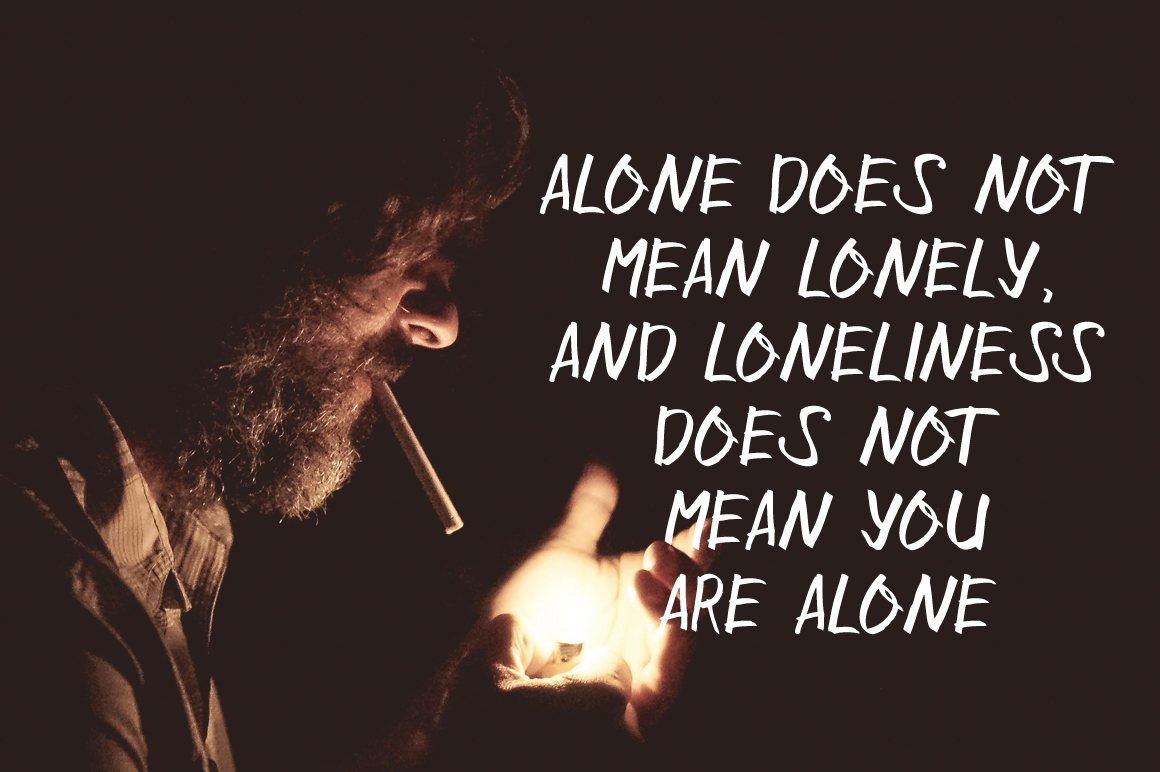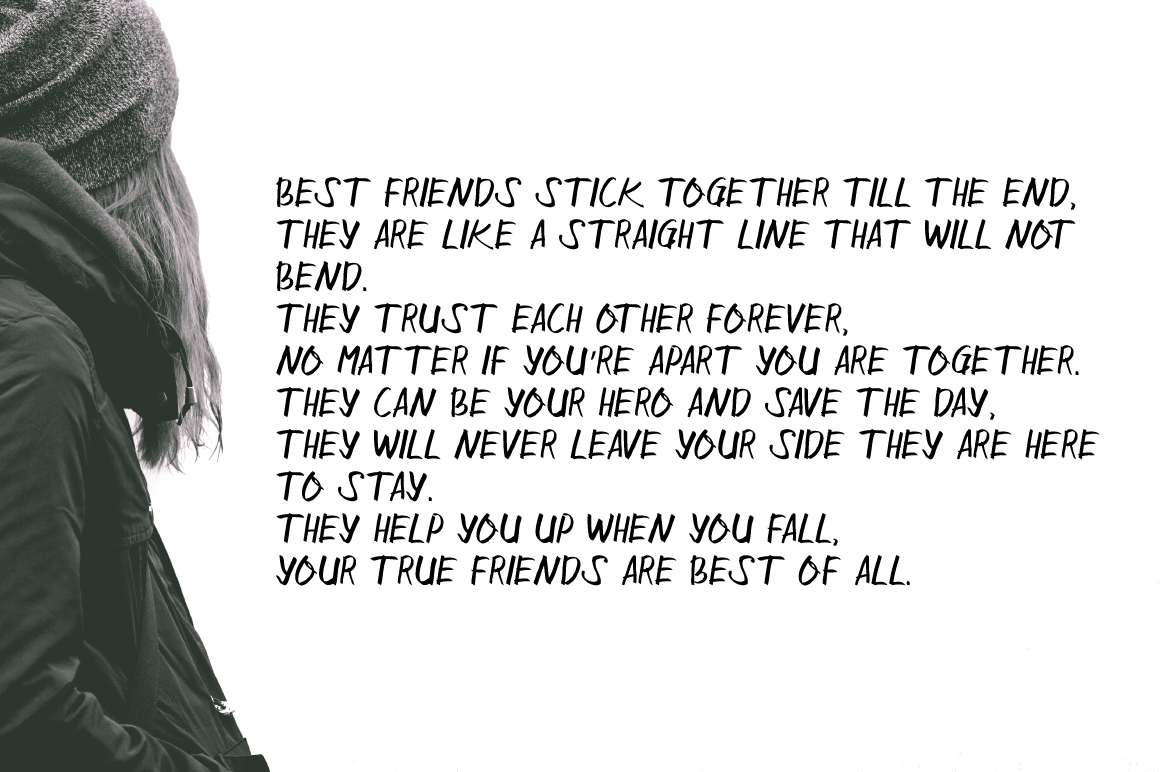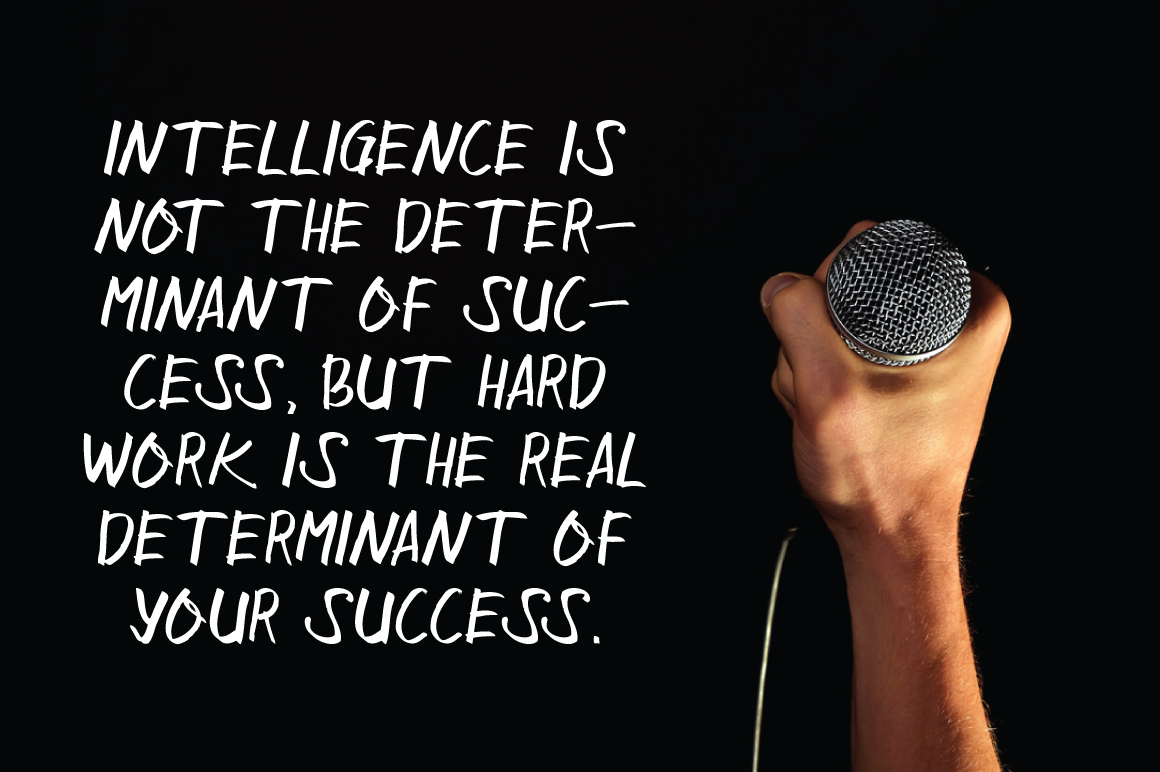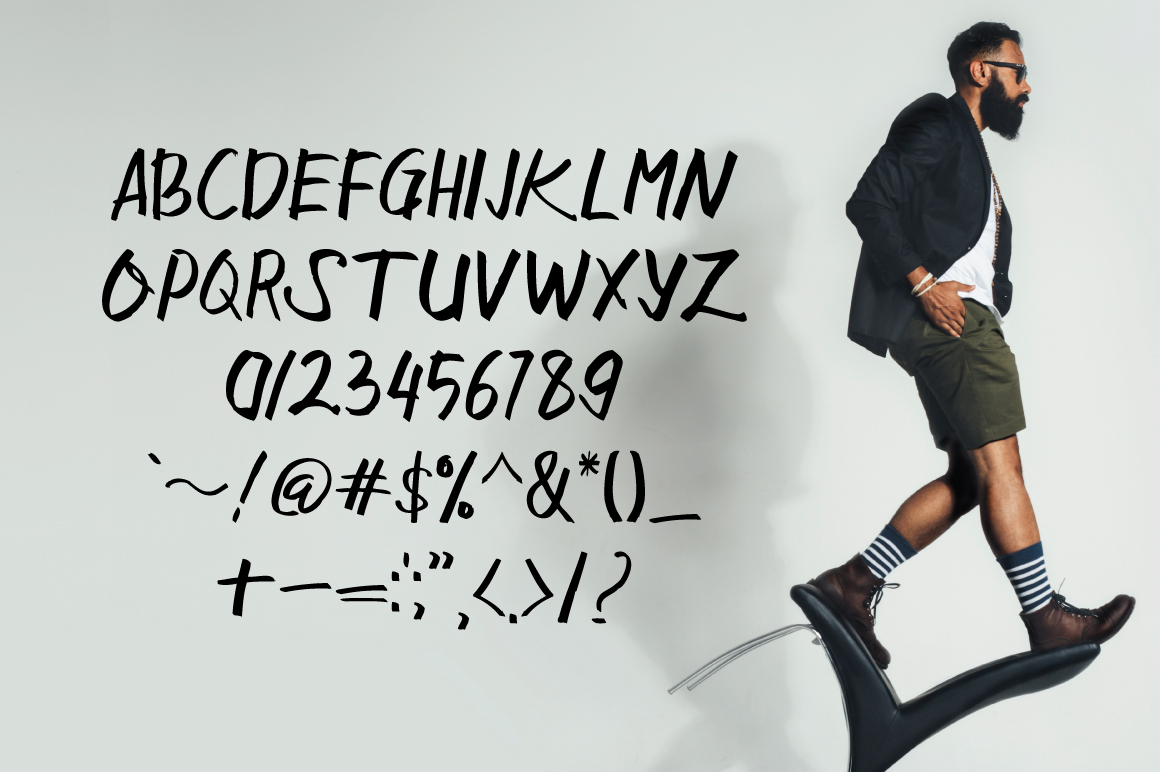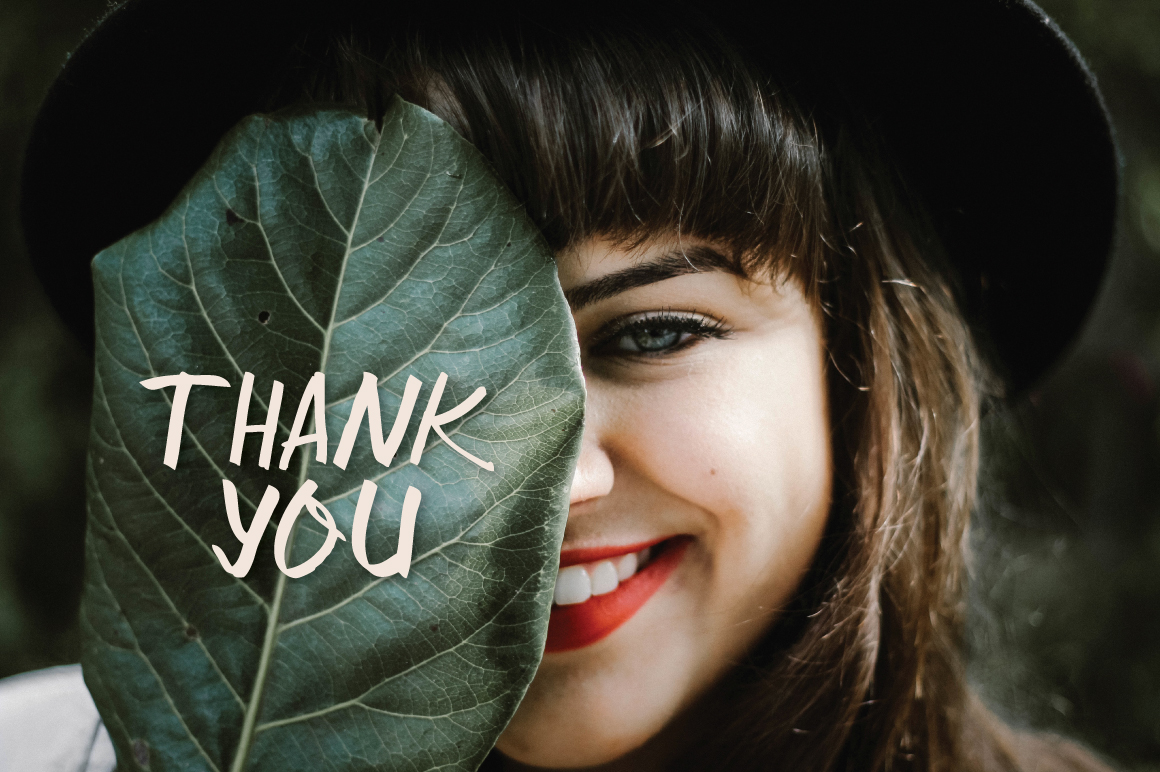
HomeScript FontsSangkalaen Font Script Fonts Sangkalaen Font FacebookXPinterestWhatsApp Sangkalaen Font Poster 2 Sangkalaen Font Poster 3 Sangkalaen Font Poster 4 Sangkalaen Font Poster 5 Sangkalaen Font Poster 6 About Sangkalaen Font Sangkalaen is a stunning clean handwritten font created by the Atjcloth Studio. DOWNLOAD ON CREATIVE FABRICAThis font is sold and delivered by Creative Fabrica. Font Canyon may earn a commission if you buy through this link. People also explored Scarlet Ribbons Behind Font Gambado Aquabella Font Christmas Market Font Blackart Font Hello Dream Font Pool Ball Font Seed Lotus Mandala Font 290 0 TagsSangkalaen Font Previous articleGendhist FontNext articleStephanie Script Font LEAVE A REPLY Cancel reply Comment: Please enter your comment! Name:* Please enter your name here Email:* You have entered an incorrect email address! Please enter your email address here Website: Save my name, email, and website in this browser for the next time I comment. Personal Use Free Muthiara Font Personal Use Free Read more about this font Tomatoes Personal Use Free Read more about this font Hashira Mt Personal Use Free Read more about this font Lovetle Personal Use Free Read more about this font BLOG Best Fonts for YouTube Videos: Make Your Thumbnails Stand Out Best Fonts for YouTube Videos: Make Your Thumbnails Stand Out Choosing the right font can make a massive difference in how your YouTube videos perform.... Where to Buy American Fonts Online in 2024 How to Install and Use Fonts on Windows, macOS, and Web Projects Best Fonts for T-Shirt Design – Top 2025 Picks